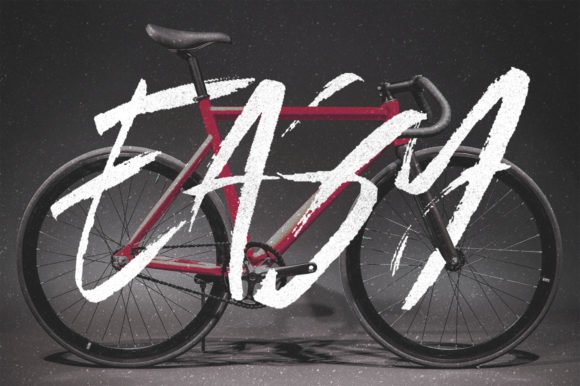
Bring Your DIY Projects to Life with the Ease of Easy Font
Do you remember that moment when you were brainstorming ideas for your next DIY project, and suddenly, the perfect font popped into your head? For many of us, that ‘aha’ moment is the spark that sets our creative juices flowing. As designers, we know that the right font can elevate our projects from ordinary to extraordinary. That’s where Easy Font comes in – a stunning pairing of a brush pen and pencil that brings an authentic, handwritten feel to your work.
Easy Font is perfect for designers looking to add a touch of whimsy and personality to their projects. Its unique blend of brush pen and pencil strokes creates a one-of-a-kind aesthetic that’s both charming and professional. Whether you’re creating a custom invitation, a logo, or a handmade journal, Easy Font is the perfect choice to make your DIY project stand out.
Easy Font Key Features
- Unique Character Set: Easy Font features a unique character set that includes a wide range of symbols, icons, and special characters.
Easy Font Review
Tips for Getting the Most Out of Easy Font
Use Easy Font for headings and titles to create a clear visual hierarchy. Experiment with different font sizes and styles to add visual interest to your text. Use Easy Font consistently throughout your design to create a cohesive look.
Easy Font is ideal for creating clean and modern designs, such as business cards, brochures, and social media graphics. It’s also great for creating presentations and reports that require a professional and polished look.